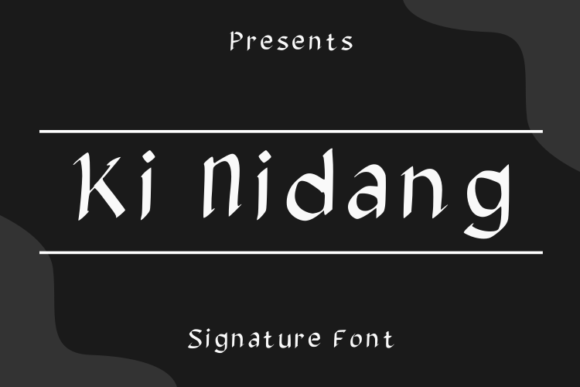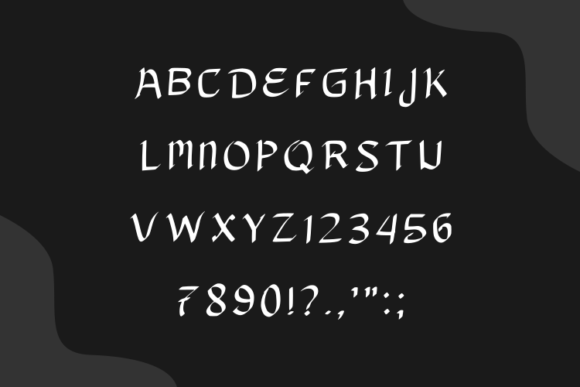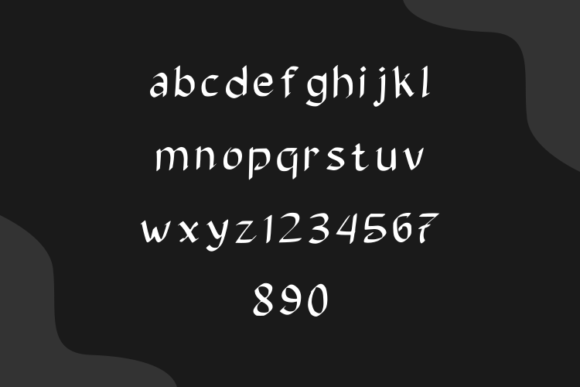
Ki Nidang
Ki Nidang: A Unique and Modern Slab Serif Typeface
Ki Nidang is a slab serif typeface that boasts a unique style and modern look. This versatile font is perfect for creating elegant and luxurious logos, book or movie title designs, fashion brands, magazines, clothing, fonts, quotes, and much more.
Key Features of Ki Nidang
• Unique Design: Offers a distinctive and contemporary look suitable for various applications.
• Slab Serif Structure: Features characteristic thick, rectangular serifs typical of slab serif fonts.
• Modern Aesthetic: Brings a fresh and current feel to designs.
• Versatile Application: Ideal for both print and digital media projects.
Ideal Uses for Ki Nidang
Ki Nidang’s unique characteristics make it particularly well-suited for:
When incorporating Ki Nidang into your designs, consider these tips:
• Use for headlines or short blocks of text to showcase its unique style.
• Utilize its modern look to create contemporary and sophisticated designs.
Ki Nidang is an excellent choice for designers looking to add a unique and modern slab serif font to their typographic toolkit. Its ability to bring elegance and luxury to various design projects makes it stand out in the world of typography. Whether you’re working on fashion branding, creating layouts for magazines, or developing content that requires a touch of sophistication, Ki Nidang offers the perfect blend of style and functionality.
Furthermore, Ki Nidang’s distinctive design allows it to shine in various contexts. From contemporary layouts to more traditional designs that need a modern twist, this font can elevate your projects. Its striking yet functional style works particularly well in designs that require a thoughtful and engaging mood.
In conclusion, Ki Nidang is a font that truly captures the essence of modern design and uniqueness in typography. Its ability to work well in both minimalist projects and more elaborate layouts showcases its flexibility. For those looking to add a touch of contemporary charm to their work, Ki Nidang can enhance themed creations with its distinctive style. It’s the perfect choice for designers seeking to make a strong, stylish impact across a wide range of creative projects.